When brides picture their dream wedding, they imagine the dress, the flowers, the venue—but rarely the fonts. Yet, fonts for wedding invitations are the very first detail guests will see. They set the tone for the entire celebration. An elegant script can whisper timeless romance, while a bold accent font can add modern flair.
If you’re a bride, a wedding vendor, or even a Canva user creating your own invitations, choosing the right fonts is no small detail—it’s the difference between ordinary and extraordinary. In 2025, the world of typography is exploding with options crafted specifically for moments as special as “I do.”
Not all fonts are created equal—especially for weddings. The best fonts for wedding invitations share three key qualities:
Whether you’re going classic, modern, or even bohemian, pairing the right fonts ensures your invitations feel cohesive and memorable.
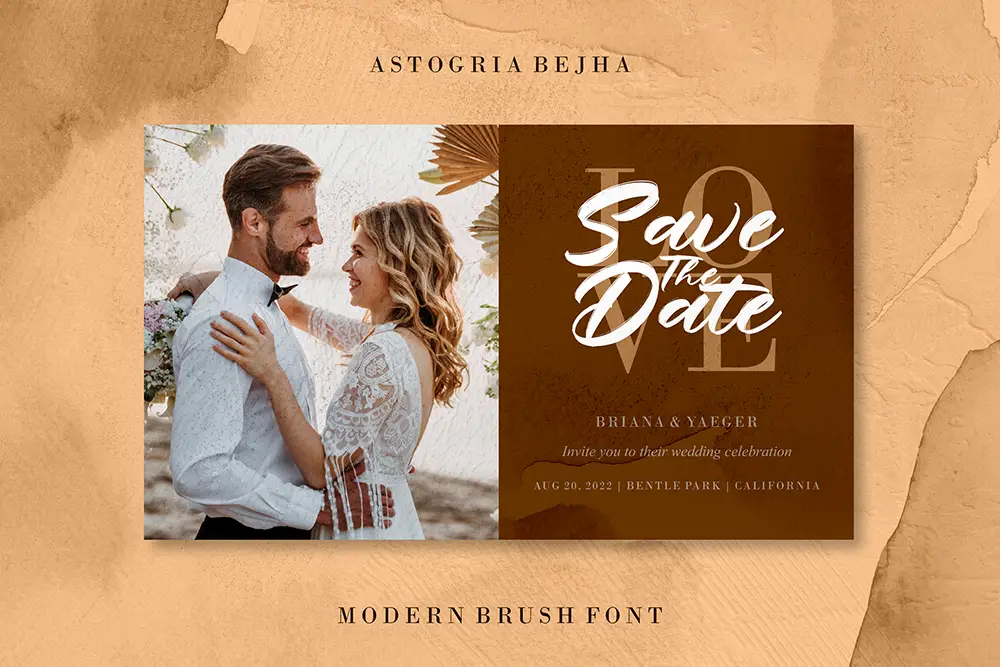
Let’s explore the top typefaces making waves in 2025. Each has been chosen for its romance, sophistication, and ability to elevate your invitation design.
Hadejah Signature is refined and luxurious, perfect for couples who want their invitations to exude timeless elegance. Its flowing strokes look as if they were written by a professional calligrapher, making it an instant favorite among wedding designers.
Radditya Signature brings a more personal flair. With its clean flow and modern touch, it feels intimate, as if each invitation was signed with care. This font works beautifully for bride and groom names.
Astogria Bejha blends brush-stroke energy with elegance, adding a contemporary twist. It’s ideal for weddings that balance tradition with modern creativity.
As the name suggests, Perfect Love radiates charm and warmth. It’s a great option for couples who want their invitations to feel welcoming and full of heart.
Brotherside combines signature elegance with bolder strokes, making it perfect for highlighting key details like couple names or venue.
Rafots Signature might not shout for attention, but its subtle curves make it a hidden gem. It’s the kind of font that quietly elevates without overpowering.
Not every wedding invitation font has to be delicate. Graphiel adds boldness without losing elegance, making it an excellent choice for headings or monograms.
Break Fridays feels lively and modern, perfect for couples who want a fun yet elegant vibe. Its bold strokes make it stand out on save-the-dates and RSVP cards.
For couples who adore vintage aesthetics, The Bratsy Script offers a throwback charm. Layered styles make it versatile for both elegant and playful invitations.
Rughton is bold and commanding, with sweeping lines that add a sense of drama. Use it sparingly for names or titles to create unforgettable impact.
Bolde may not be a script, but its modern sans-serif style pairs beautifully with handwritten fonts. Use it for the practical details—date, time, location—balancing beauty with clarity.
As design professionals, we’ve seen one truth repeat itself across countless creative fields: typography sets the emotional tone. When it comes to weddings, this truth becomes even sharper. Fonts for wedding invitations aren’t just decoration—they are the first signal of how the entire celebration will feel.
Professional advice is simple:
As typographer Robert Bringhurst reminds us:
“Typography is the craft of endowing human language with a durable visual form.”
In weddings, that durable form is more than design—it’s memory. A well-chosen font ensures your story is remembered exactly the way you want it told.
Your wedding invitation isn’t just paper—it’s the first chapter of your love story that guests will see. Choosing the right fonts for wedding invitations ensures that your message comes alive with elegance, romance, and personality.